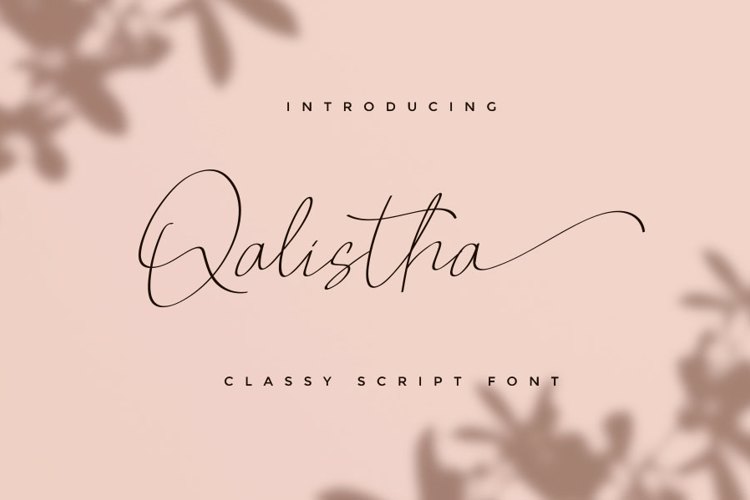
Qalistha Font
About Qalistha Font
Qalistha is a classy script font and we keep this font looks elegant, classy, readable, stylish, catchy and easy to use. Qalistha is the great choice for watermark on photography, signature or signature logo design, quotes, album cover, business card, and many other design project. Qalistha is here to make your work to high level!!!